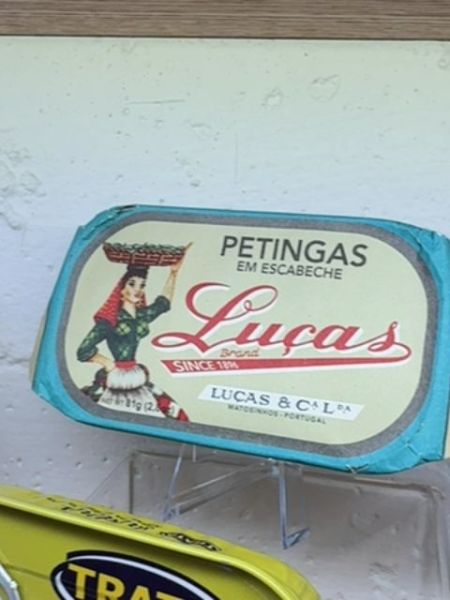
Luças Petingas em Escabeche
A type of canned fish product, specifically sardines (petingas) in a spiced vinegar sauce known as escabeche.
1924
Portugal
The typography includes a bold, script-style font for the brand name 'Luças,' giving it an elegant and nostalgic feel. The supporting text is in a clean, sans-serif font that provides readability and a modern contrast to the script style.
The packaging features a vintage aesthetic with an illustration of a woman in traditional attire. The label is designed in an oval shape with a muted color palette, primarily using cream and teal tones.
- Popular in Portuguese cuisine
- Preserves fish in a flavorful marinade
- Brand established 1924